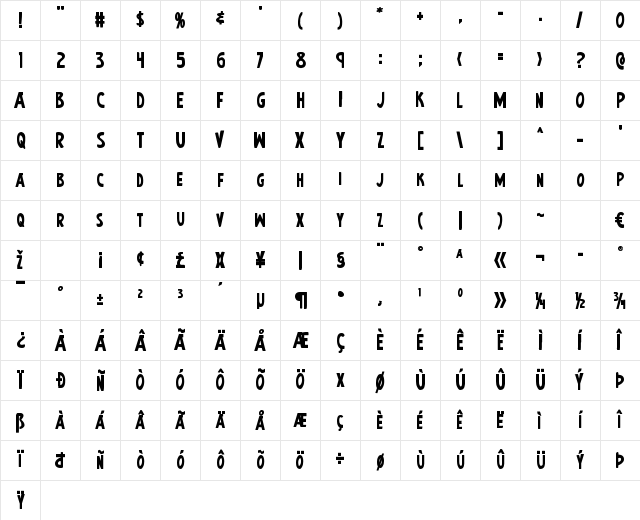
Earth's Mightiest Bold Bold Free Font
Earth's Mightiest Bold Bold
Design Context for Earth's Mightiest Bold
Earth's Mightiest Bold is a composed and adaptable typeface that performs quietly and consistently across a wide range of design contexts. Its bold stroke weight gives it real presence on the page.